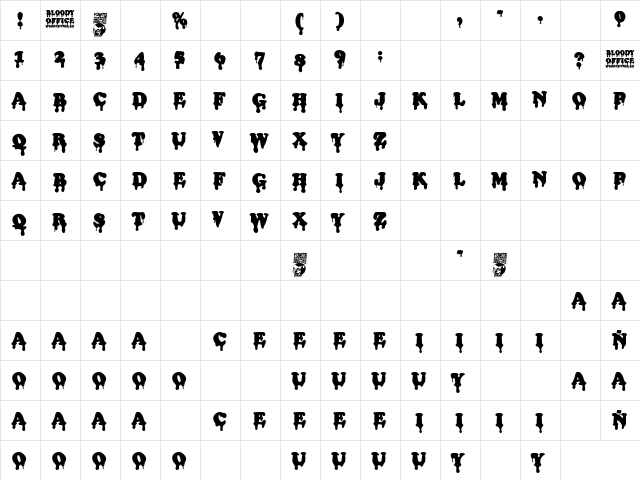
Bloody Office Regular
| Designer | Woodcutter Manero |
Design Context for Bloody Office Typeface
Bloody Office carries an unsettling edge — its distorted letterforms are built to unsettle, perfectly suited to horror, Halloween, and dark creative work.
Ideal for Halloween projects, horror film titles, haunted house signage, and dark editorial design.
Font Pairing: Pair with a clean neutral sans-serif for body copy to let Bloody Office's character lead without overwhelming the composition.
Pro Tip: Bloody Office works best as a headline or focal element. Pair it against plain, neutral body text to amplify the contrast.